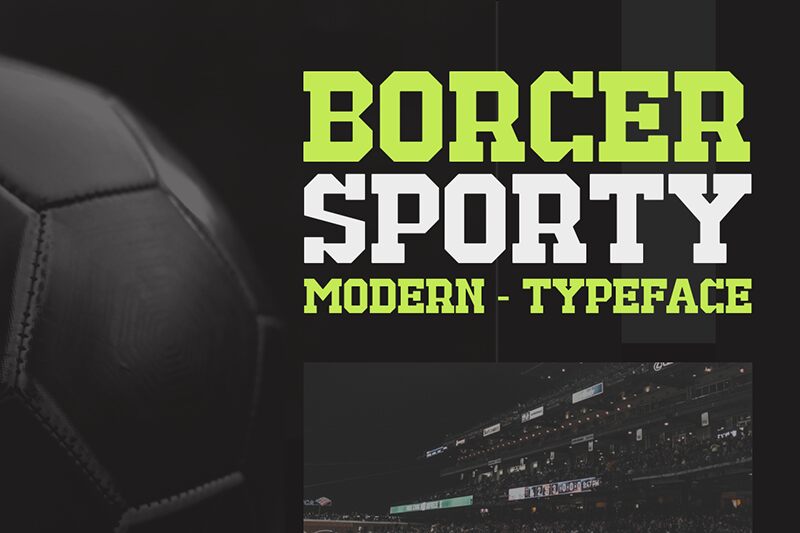
Borcer
Borcer font by Gilang Ternadho of Maikohatta is a free industrial bold serif font with geometric edges and firm angles. It evokes a strong presence and solid form excellence in any typography design. The futuristic style is balanced with block characteristics that together manage to accommodate legibility and easy reading.
Use it for movie posters, magazine titles, headlines in newspapers, covers of graphic novels or comic books, packaging design, logos, blog developments, websites or mobile UI design. Alternatively use it in advertising projects related to technology productions.